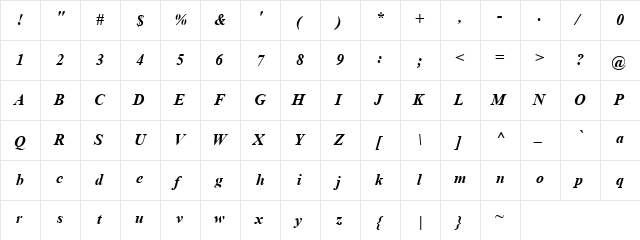
AngsanaUPC Bold Italic Font Preview
Design Context for AngsanaUPC Typeface
AngsanaUPC takes a measured approach to typography — its balanced proportions and neutral character make it a reliable workhorse for both digital and print work. Its italic angle brings a sense of urgency and motion to the letterforms. The heavy weight commands attention and anchors typographic hierarchies.
Pro Tip: Try AngsanaUPC for annotation and caption copy alongside an upright companion — the contrast in angle creates a dynamic but ordered typographic system.